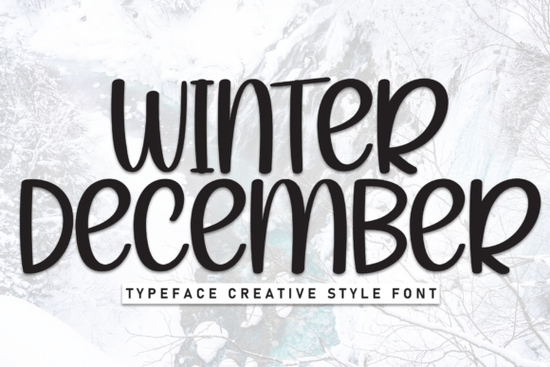
If you're looking for a friendly, hand-drawn script font that captures the quiet magic of snowfall and cozy December evenings, the Winter December Font Font is a thoughtful choice. It’s not overly ornate or stiff it feels like someone wrote it with care, maybe while sipping hot cocoa by the window. That warmth translates well across print and digital projects, especially when you want your text to feel personal and inviting rather than polished and corporate.
What kind of projects does this font work best for?
This font shines where personality matters most: greeting cards (especially holiday or winter-themed ones), wedding stationery, small-batch product labels, and social media graphics for seasonal promotions. Because it’s a handwritten display font not a body text font it’s ideal for headlines, quotes, names, and short phrases. You’ll want to pair it with a clean sans-serif or simple serif for contrast in longer layouts.
For example, if you’re designing a set of wedding fonts for a December elopement, this one adds instant charm to “Mr. & Mrs.” or “Join us on December 14th.” It also fits naturally alongside rustic elements think twine-wrapped invites, kraft paper tags, or chalkboard-style signage. Crafters who make handmade ornaments or printable calendars often find it pairs nicely with subtle snowflake motifs or soft watercolor backgrounds.
How does it compare to other seasonal script fonts?
Unlike some winter-themed fonts that lean heavily into icy sharpness or glittery embellishments, Winter December Font Font keeps things approachable. Its lowercase letters have gentle curves and slight irregularities just enough to feel human, not robotic. Uppercase letters are slightly more structured but still relaxed, making them easy to read at medium sizes.
It’s also more versatile than fonts tied to a single holiday. While it evokes December, it doesn’t scream “Christmas tree” or “Santa.” That means you can use it for New Year’s Eve menus, January wellness journals, or even early spring branding that leans into renewal and quiet reflection. If you’ve browsed our handwritten Halloween fonts, you’ll notice this one shares the same organic energy but swaps spookiness for softness.
Designers building brand kits for small businesses will appreciate how easily it adapts to different tones. Paired with warm neutrals and soft textures, it reads as gentle and sincere. With deep greens and metallic golds, it becomes quietly elegant. And if you’re exploring farmhouse aesthetics, you might like how it complements the Farmhouse Breakfast Duo Font for layered headings or menu boards.
The font includes standard Latin characters, numbers, and basic punctuation. It doesn’t contain extensive language support (like extended diacritics or Cyrillic), so it’s best suited for English-language projects or those using common Western European languages with minimal accents. Also, since it’s a display font, avoid using it below 24pt for print or 32px for web smaller sizes may lose legibility due to its delicate joins and thin strokes.